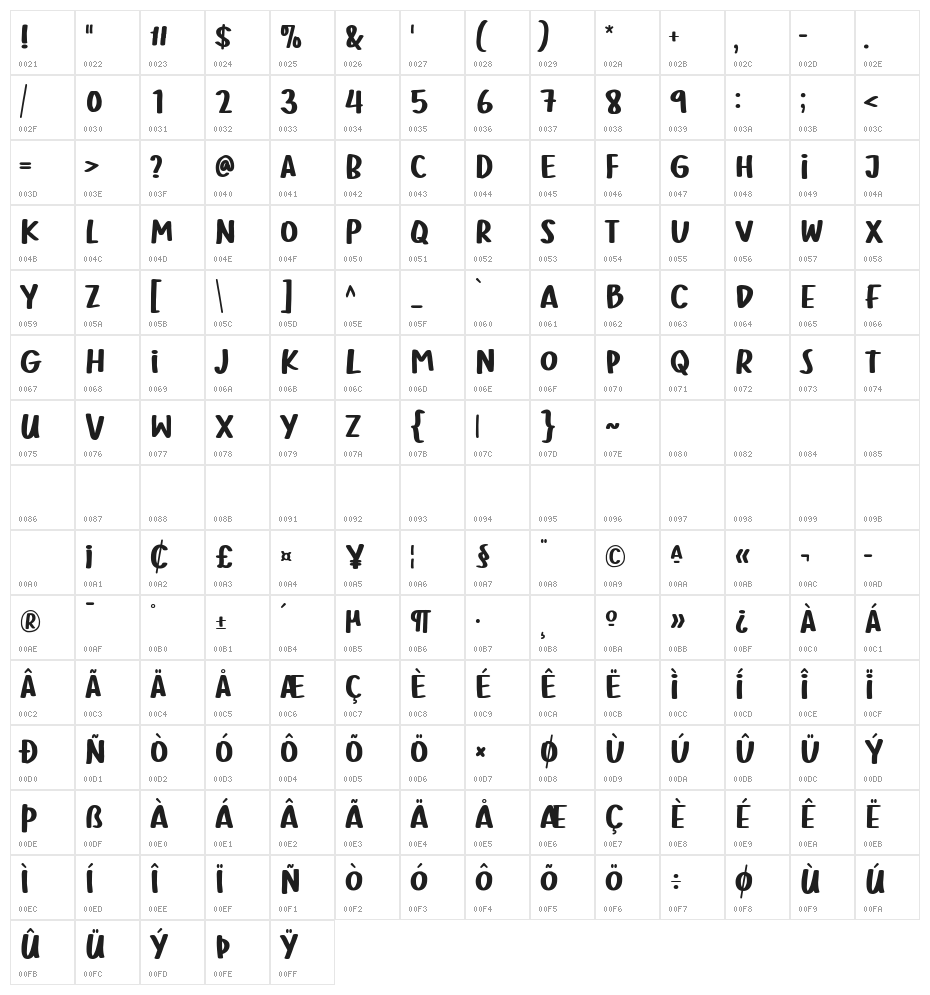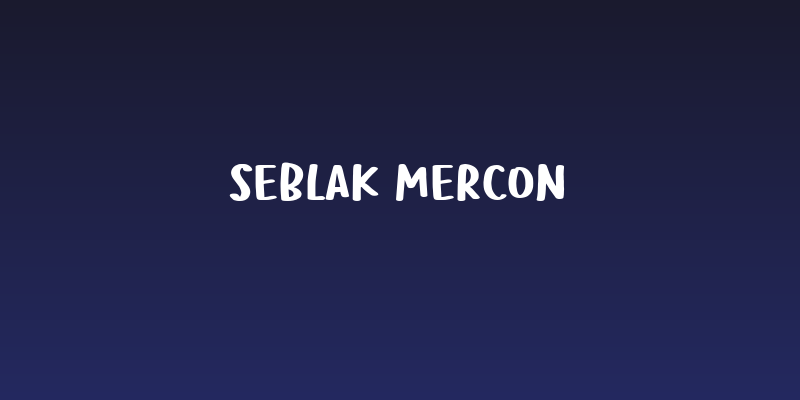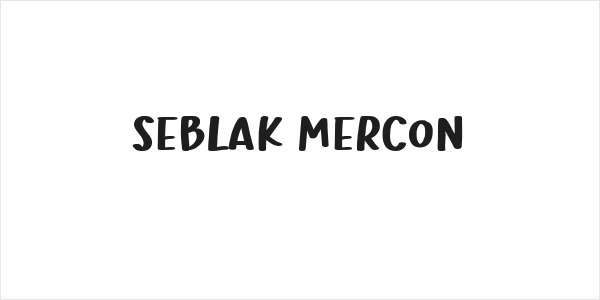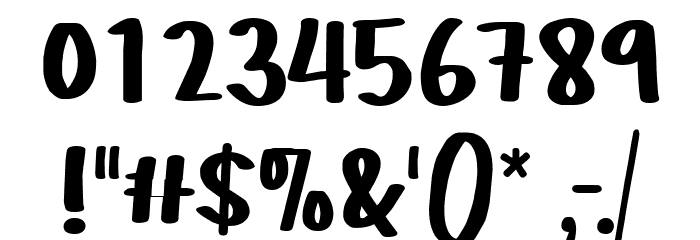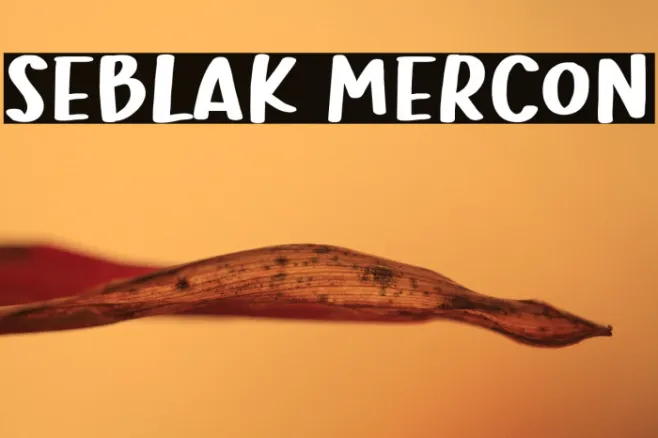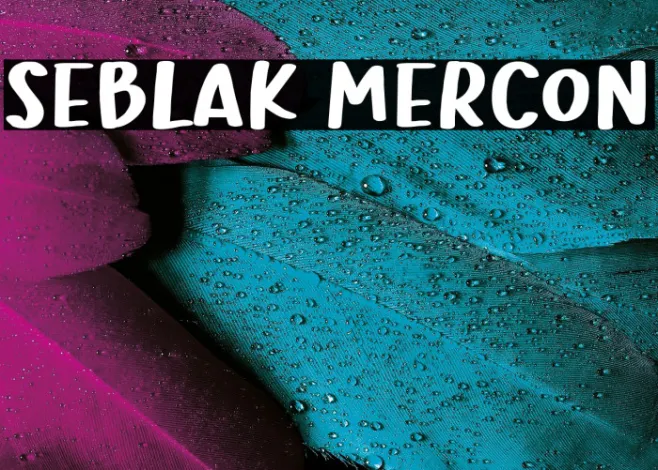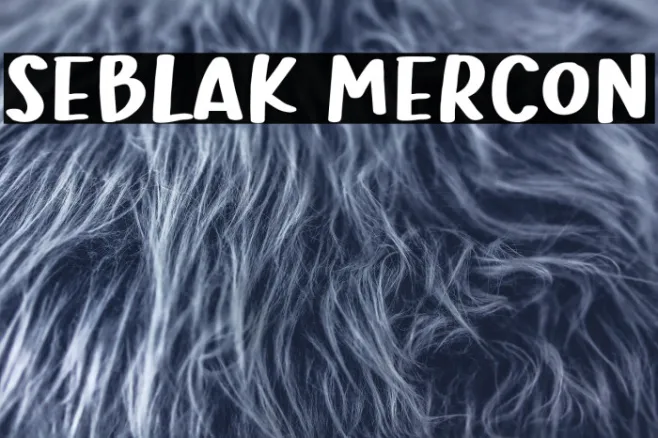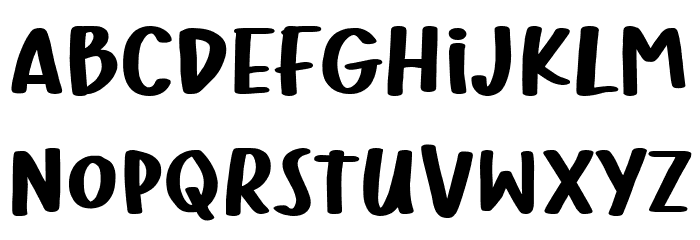
Seblak Mercon Font
Seblak Mercon Description
This font features a bold, playful style with a handwritten appearance. The letters are slightly irregular, giving it a casual and friendly vibe. The strokes are thick and rounded, contributing to its approachable and informal look. The characters are well-spaced, ensuring readability while maintaining a lively and energetic feel. This font is versatile, suitable for a variety of creative projects where a personal touch is desired. The numerals and special characters are consistent with the overall style, maintaining the same bold and rounded characteristics.
| Proposed Projects | Ideal for children's books, greeting cards, playful branding, and social media graphics. |